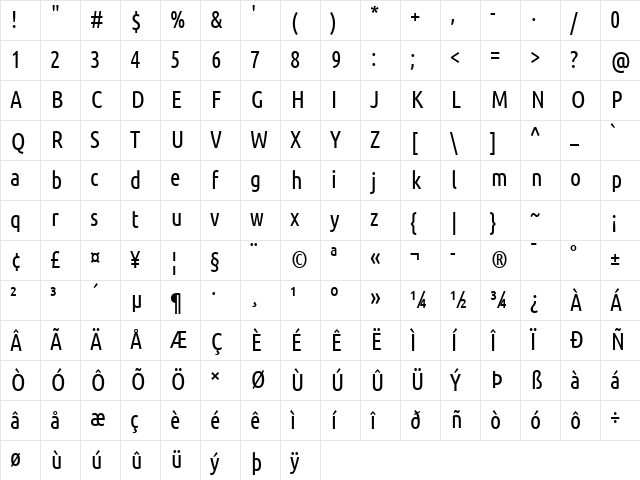
UbuntuCondensed Nerd Font Mono Regular
Foundry: Dalton Maag Ltd
Designer: Dalton Maag Ltd
Design Context for UbuntuCondensed Nerd Font Mono
UbuntuCondensed Nerd Font Mono uses fixed-width spacing throughout, giving it the structured, systematic character associated with coding environments and technical documentation.
Pro Tip: Use UbuntuCondensed Nerd Font Mono with slightly increased line-height for extended reading - fixed-width spacing can feel dense in longer passages without extra breathing room.
Who designed the UbuntuCondensed Nerd Font Mono Regular font?